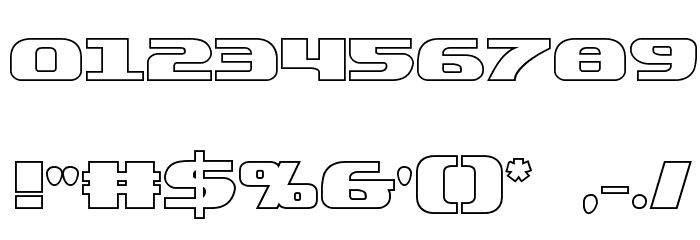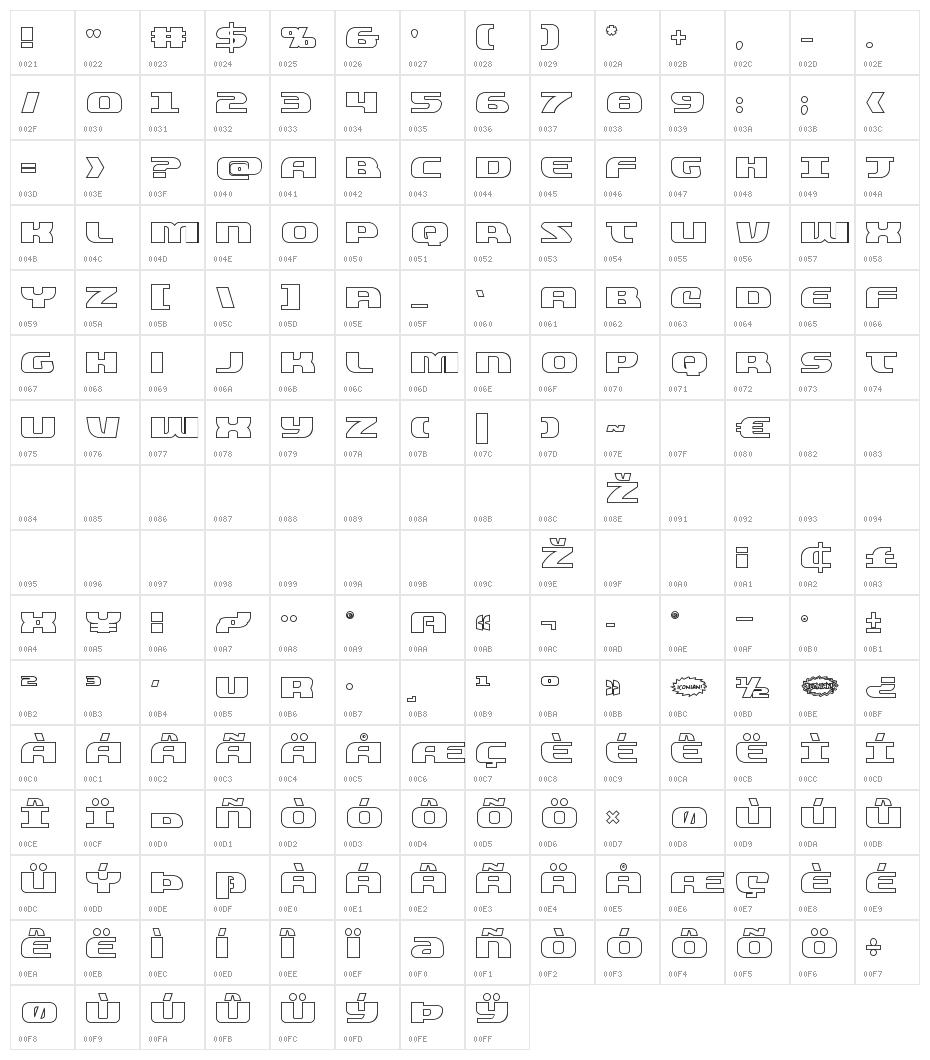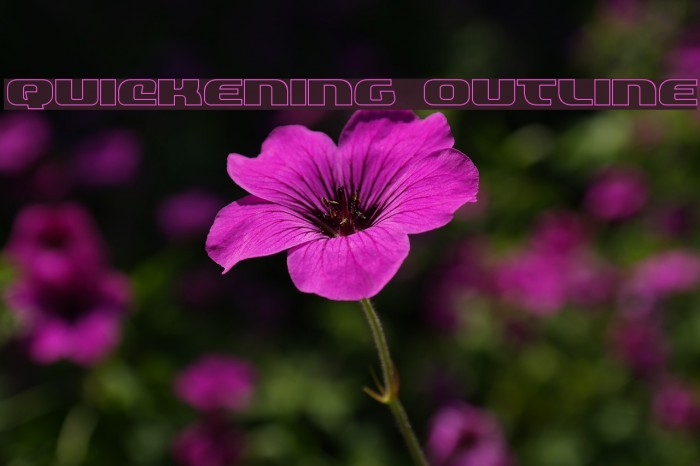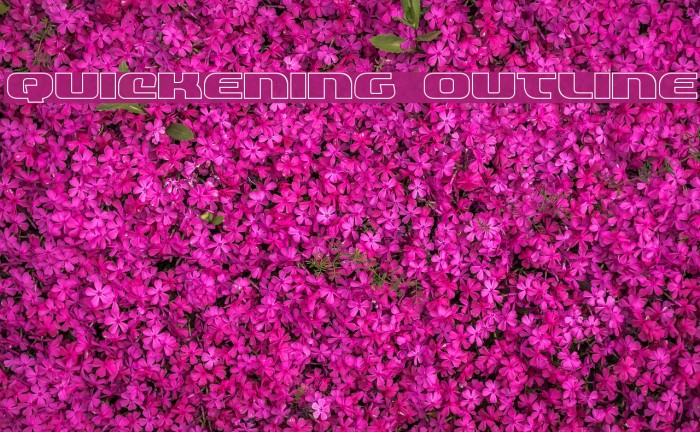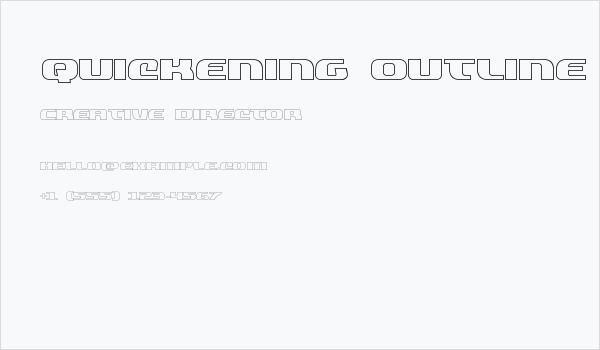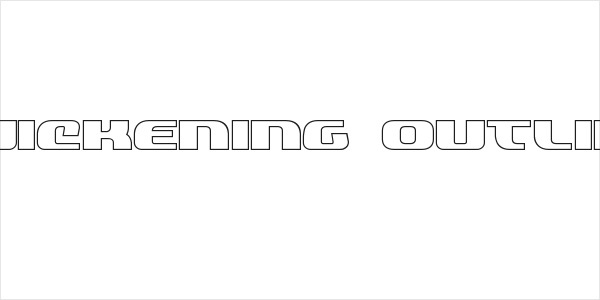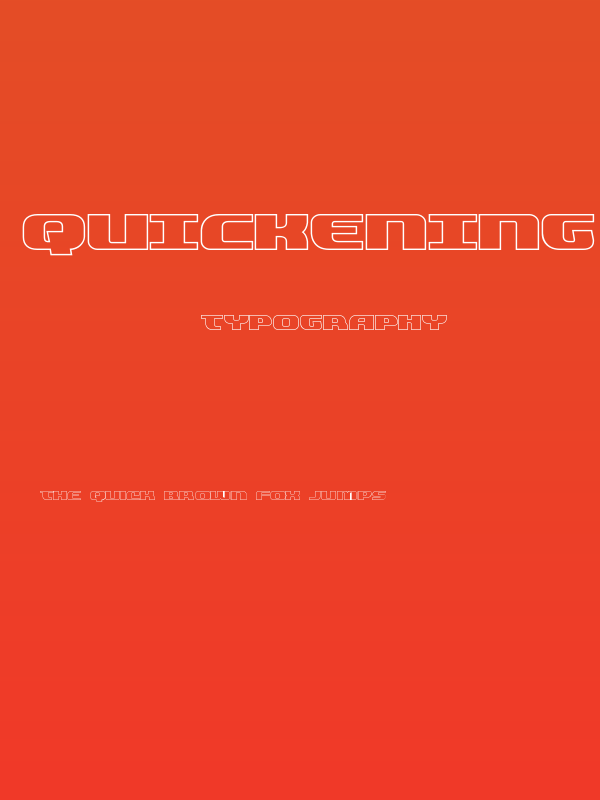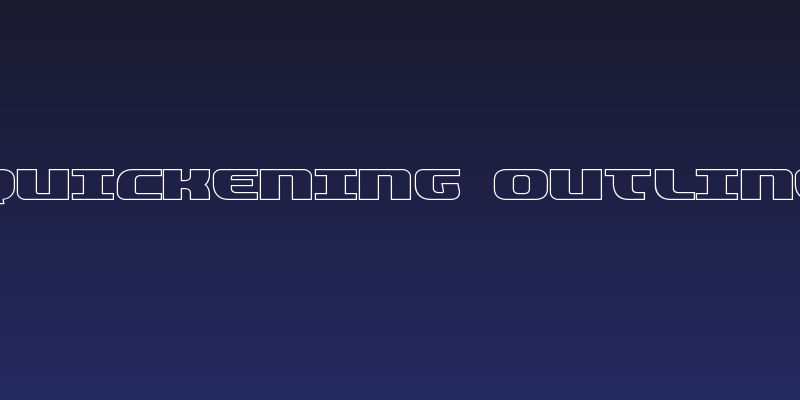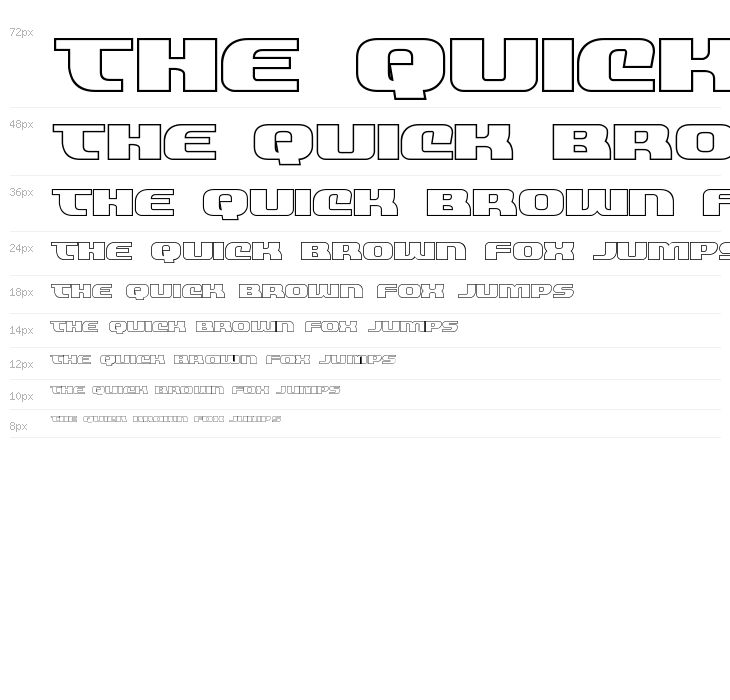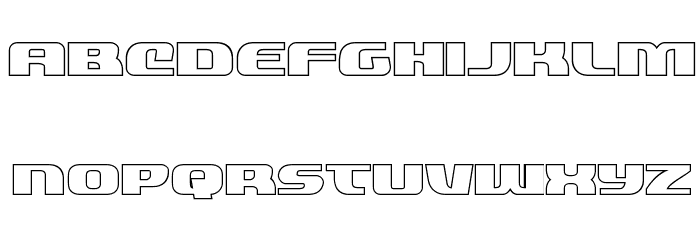
Quickening Outline Font
Quickening Outline Description
This font features a bold, outlined style that gives it a modern and futuristic appearance. The characters are constructed with thick, uniform lines that form a hollow interior, creating a striking visual effect. The geometric shapes of the letters are consistent, with sharp angles and clean edges, contributing to its contemporary look. The uppercase and lowercase letters maintain a uniform height, while the numbers and special characters are designed to match the overall aesthetic. This font's unique outline design makes it stand out, offering a distinctive option for creative projects.
| Proposed Projects | Ideal for futuristic designs, tech branding, posters, and digital media. |